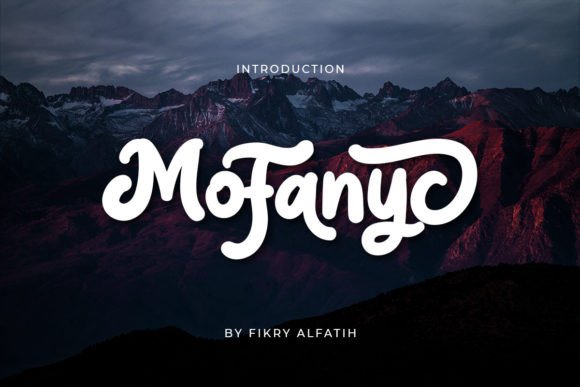
Welcome to the world of Mofanyc Font, where elegance and legibility dance harmoniously. Crafted with utmost care by Fikry Alfatih, Mofanyc is a script typeface that personifies simplicity and casual charm. Its bold strokes and effortlessly flowing curves exude a timeless sophistication that transcends fleeting trends.
With Mofanyc Font, your designs will captivate and inspire, leaving an indelible mark on your audience. Whether you're a seasoned graphic designer or just starting your creative journey, Mofanyc is the perfect font to elevate your projects and bring your visions to life.
Immerse yourself in the versatility of Mofanyc Font. Its meticulously crafted characters dance across the screen, effortlessly adapting to a myriad of design applications. From logos that command attention to quotes that resonate with emotion, Mofanyc Font seamlessly integrates into your creative endeavors.
Create apparel designs that speak volumes, wedding invitations that exude romance, and book covers that intrigue and captivate. Mofanyc Font is the ultimate tool for transforming your ideas into tangible masterpieces.
As a font specifically designed for reading scripts, Mofanyc Font ensures that your words flow with effortless grace and clarity. Its carefully balanced letterforms and generous kerning create a reading experience that is both enjoyable and immersive. Whether it's a screenplay, a novel, or a heartfelt letter, Mofanyc Font will carry your message with unwavering elegance.
Embrace the allure of Mofanyc Font and embark on a creative journey that knows no bounds. Its timeless design and unwavering functionality will elevate your projects to new heights, leaving a lasting impression on all who encounter your work.